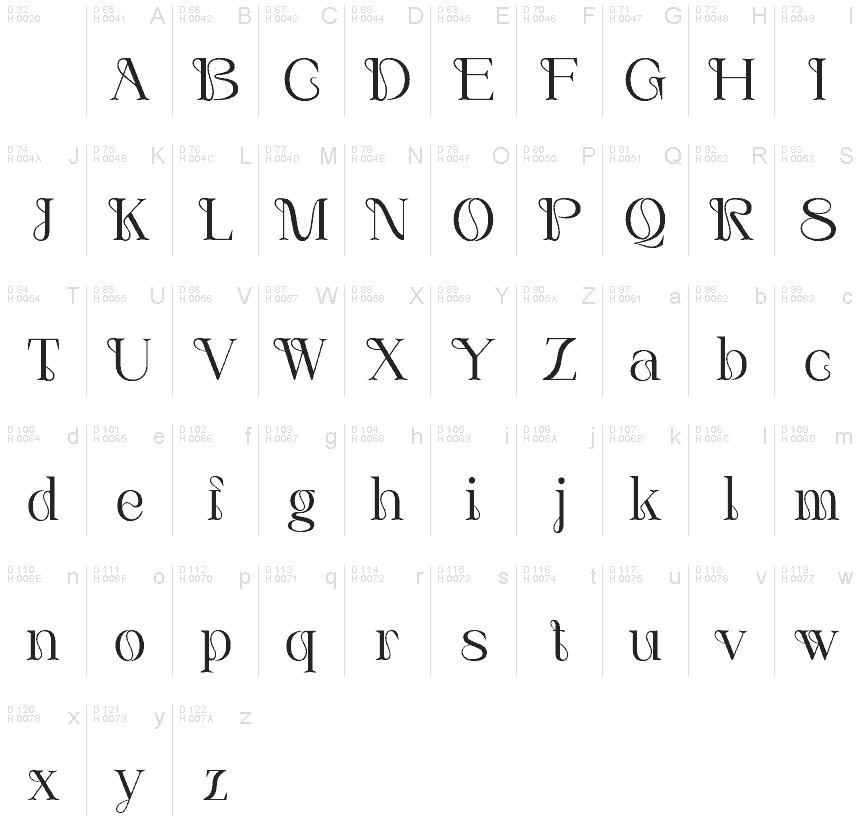
Varelle Demo Regular
Varelle font by Craft Supply Co is a free serif font with a modern touch that boasts graceful elegance. It is inspired by the letterforms of classic styles which are reflected in its letters that mimic decorative construction. Each character exhibits artistic and decorative detailing for the clearest effect made more vivid through the capital characters and their curls.
This elegant project can easily personalize typography works and add a touch of authenticity to business cards, posters, magazine titles, advertisements, book covers, postcards, product packaging for accessories or cosmetics, and even branding projects.